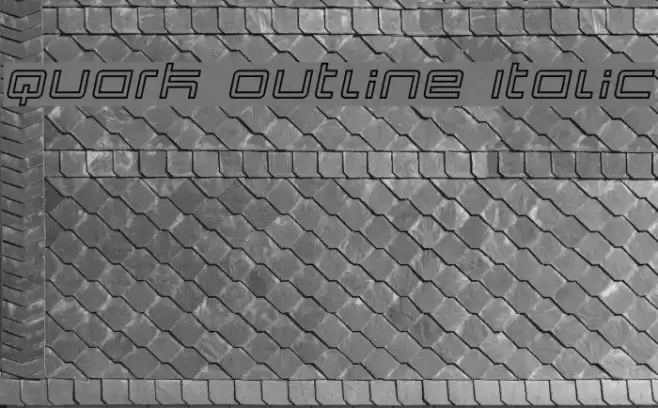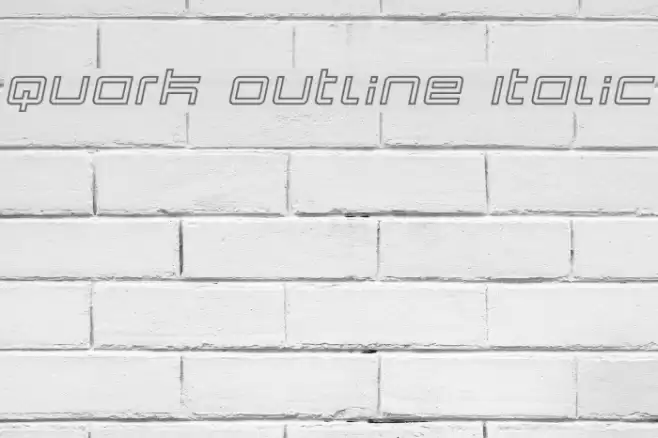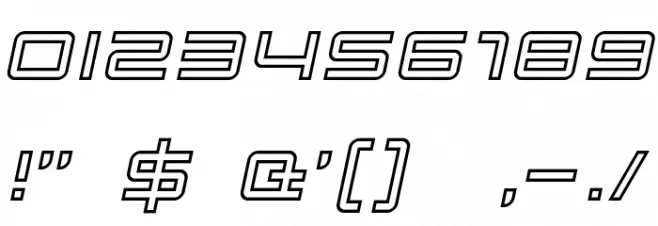
Quark Outline Italic Font
Quark Outline Italic Description
This font features a modern, geometric outline style with a distinct italic slant. Each character is crafted with precision, showcasing a futuristic and technical aesthetic. The uppercase and lowercase letters maintain a consistent width, creating a uniform appearance. The numerals and special characters follow the same design principles, ensuring a cohesive look across all glyphs. The outline effect adds a unique dimension, making it stand out in various design contexts. Its clean lines and structured form make it suitable for projects that require a contemporary and innovative touch.
A modern, geometric outline font with an italic slant, ideal for futuristic designs from Futuristic fonts.
- Proposed Projects: Ideal for tech branding, digital interfaces, futuristic posters, and sci-fi themed projects.